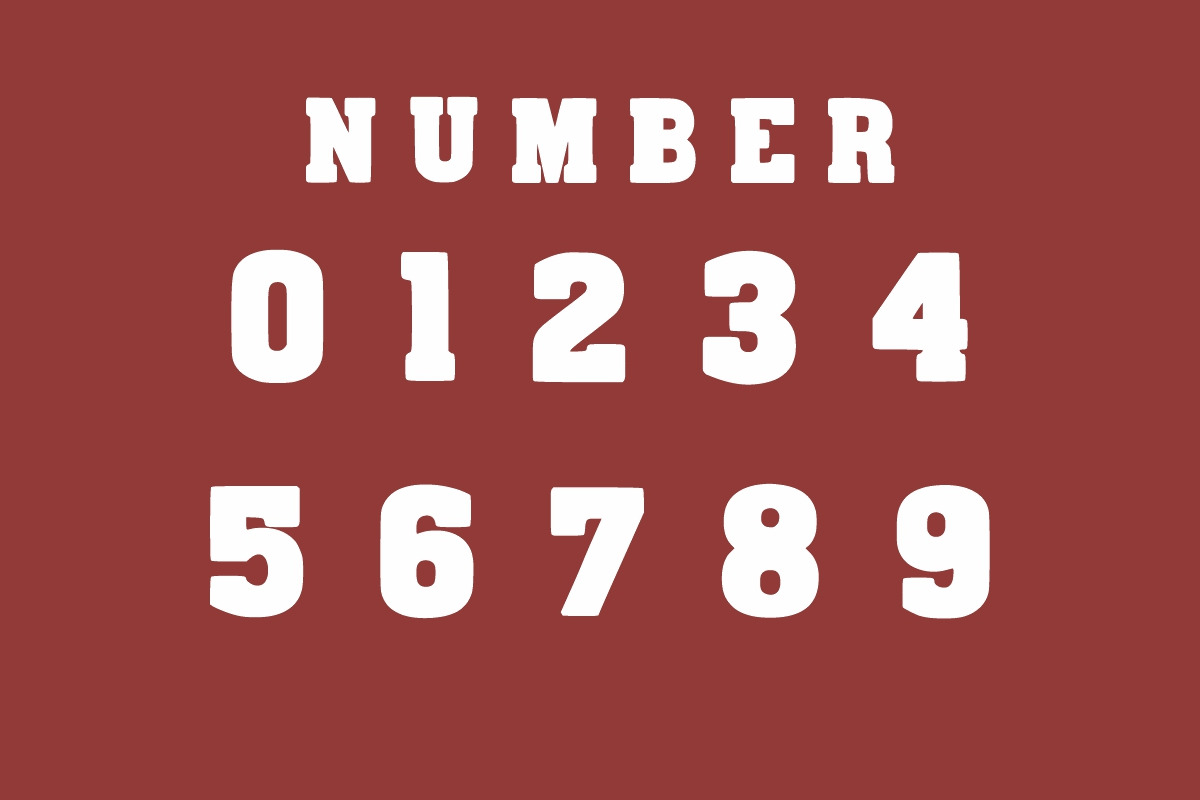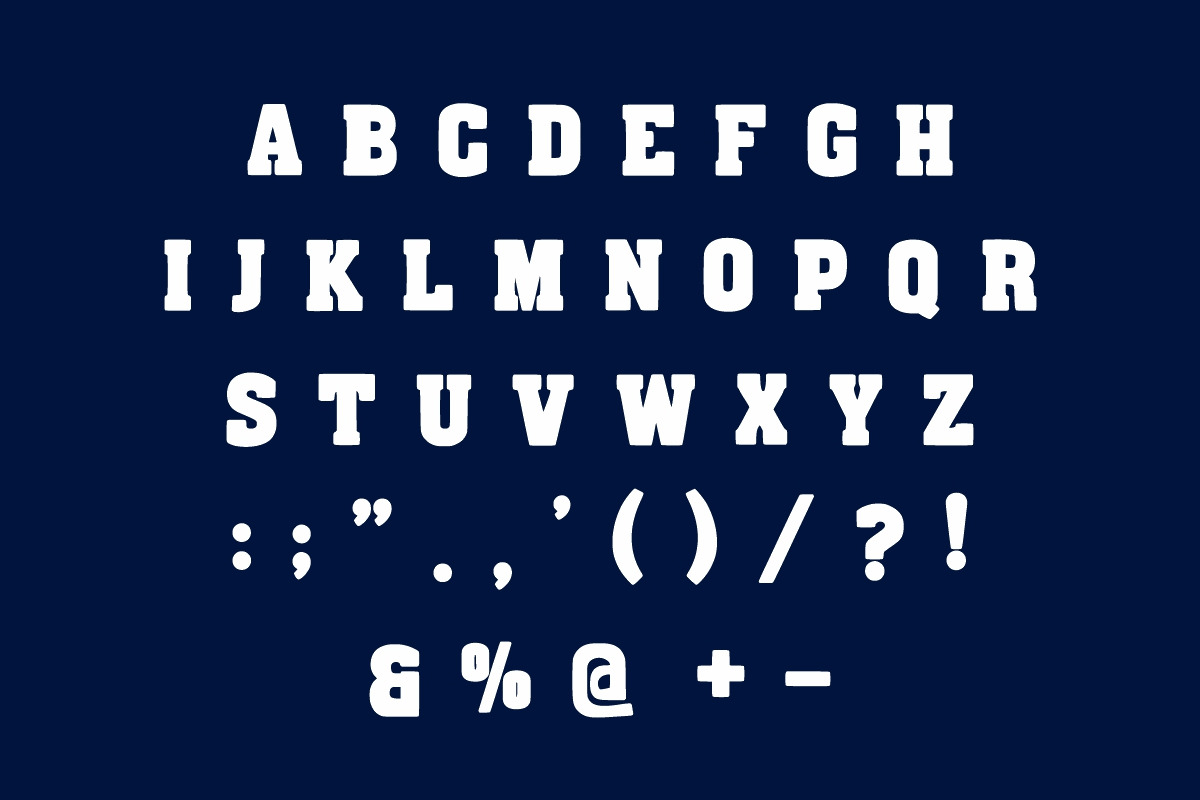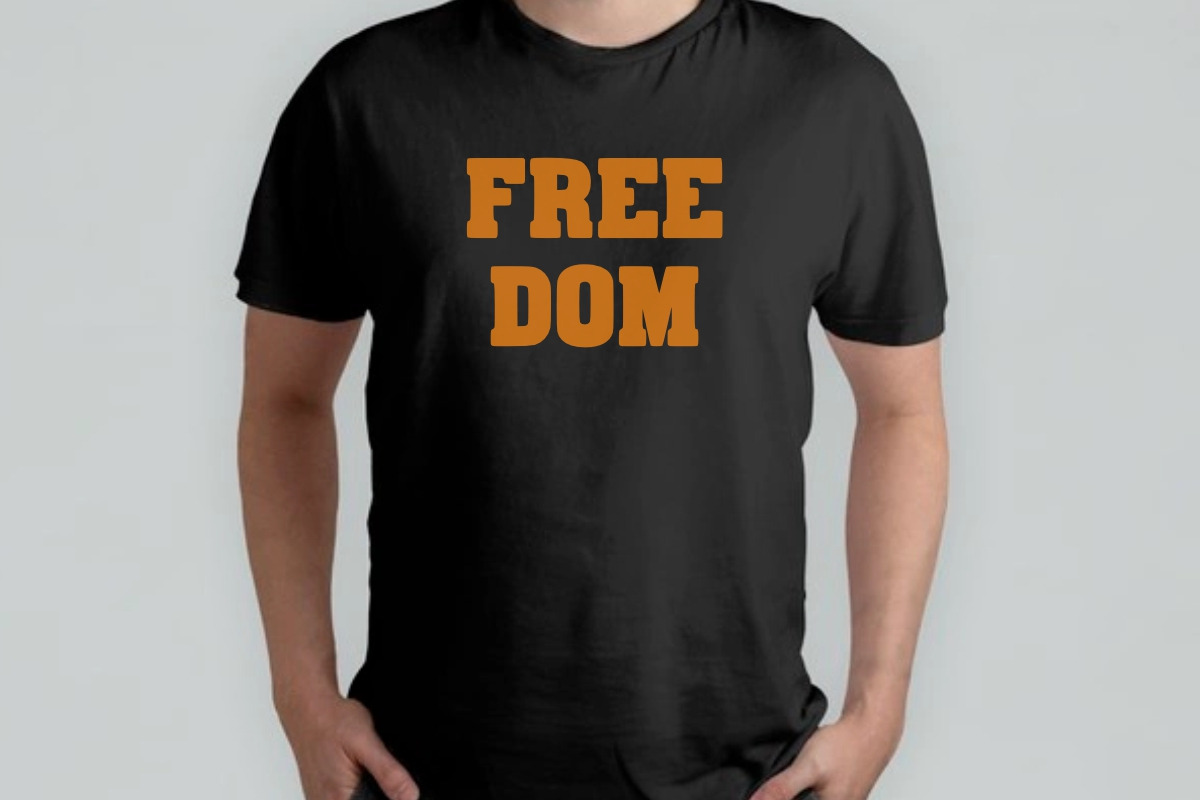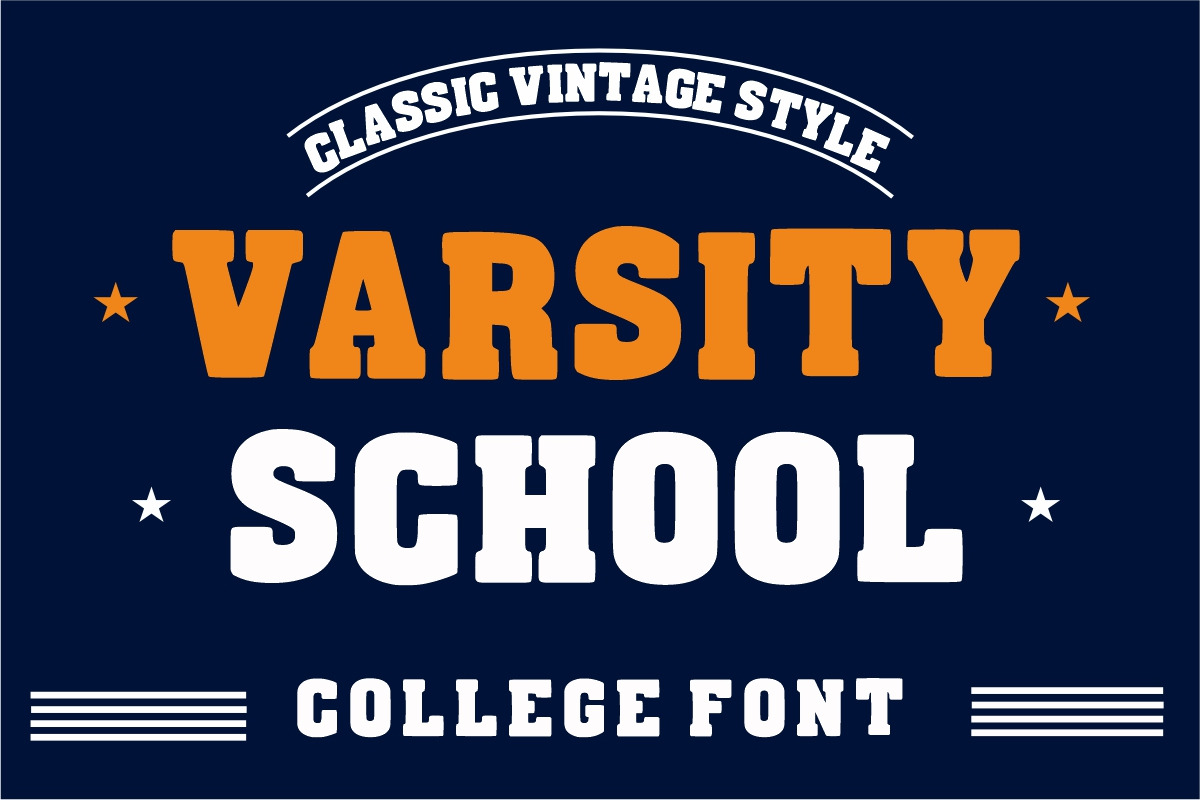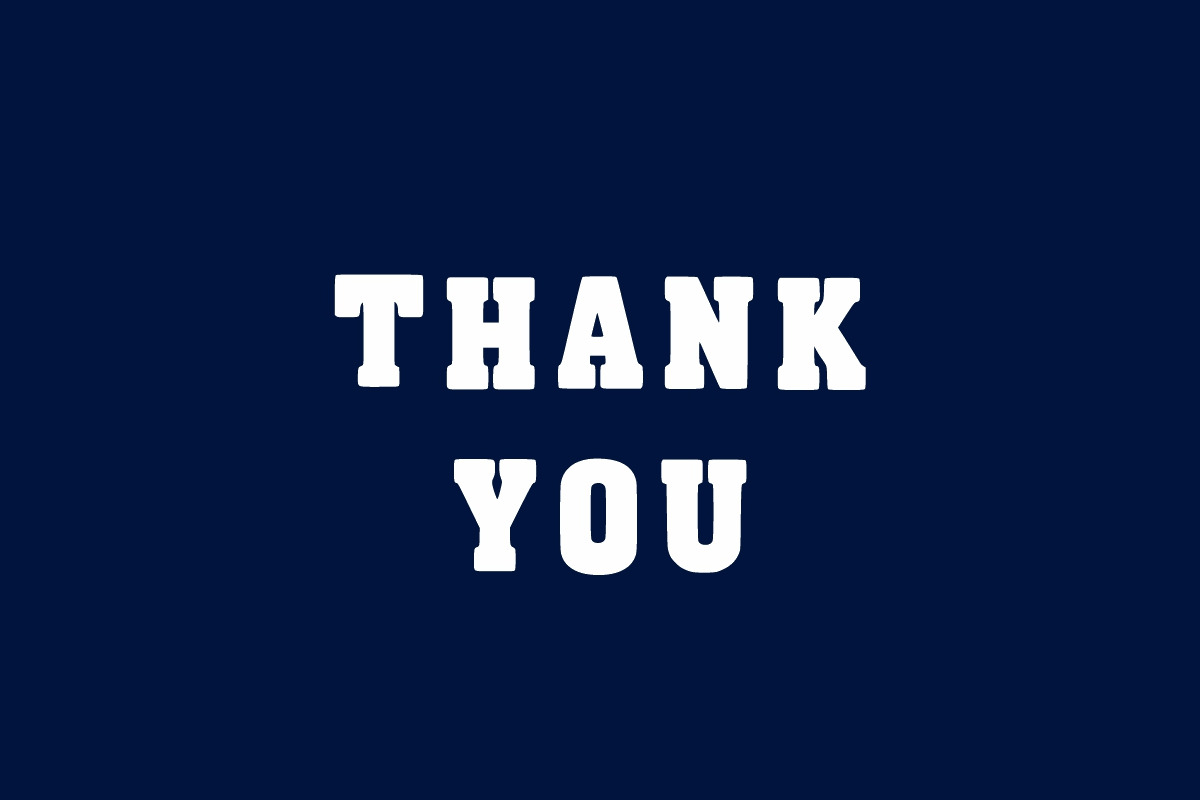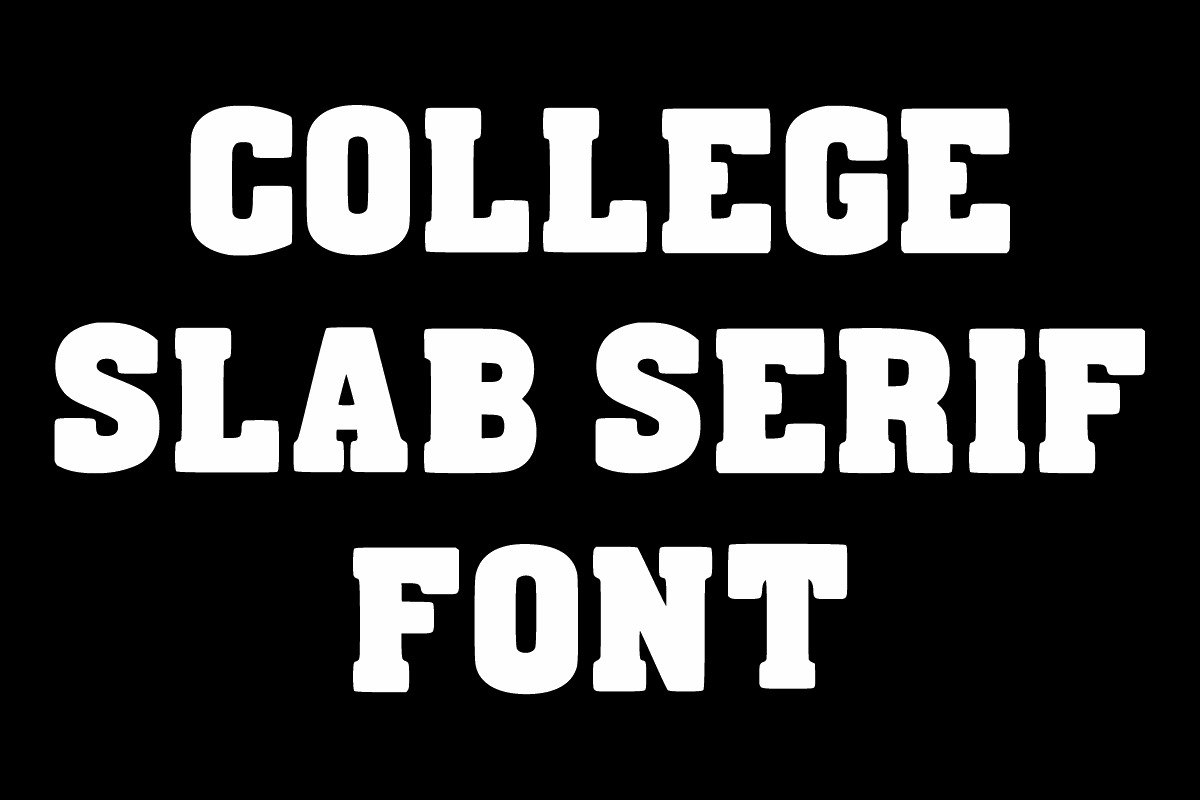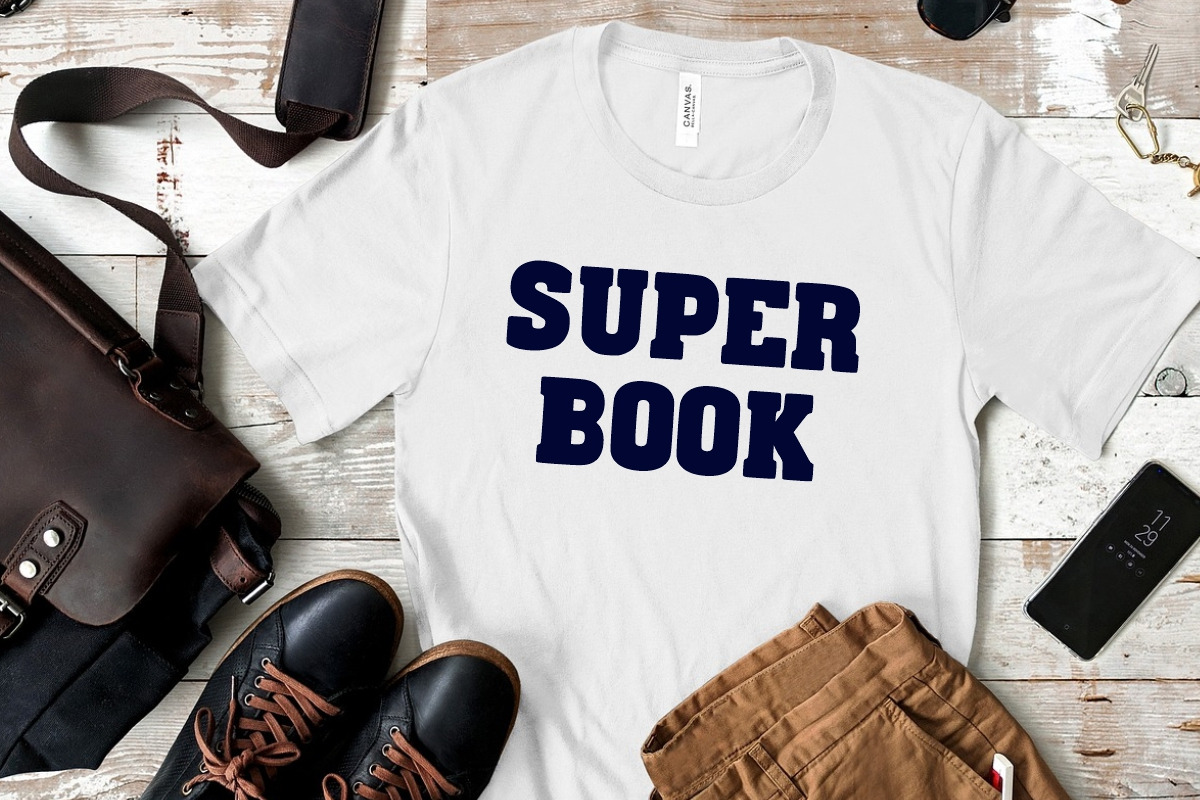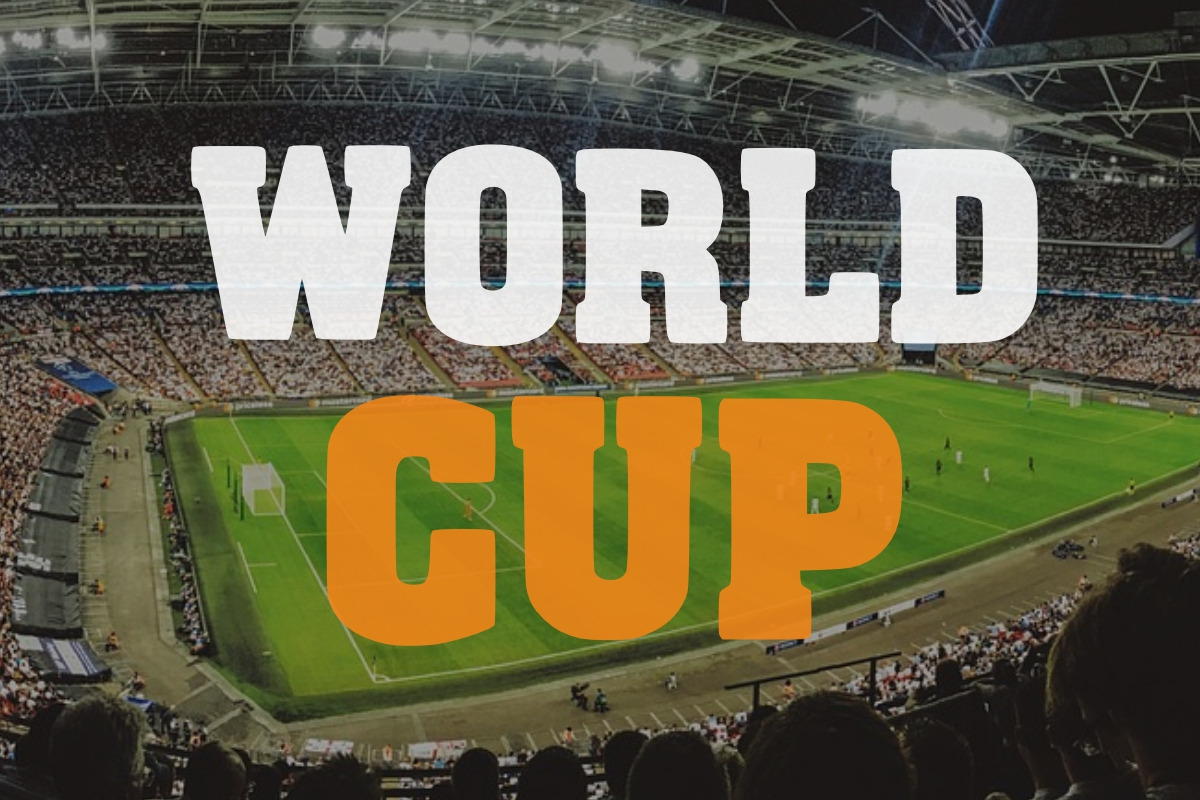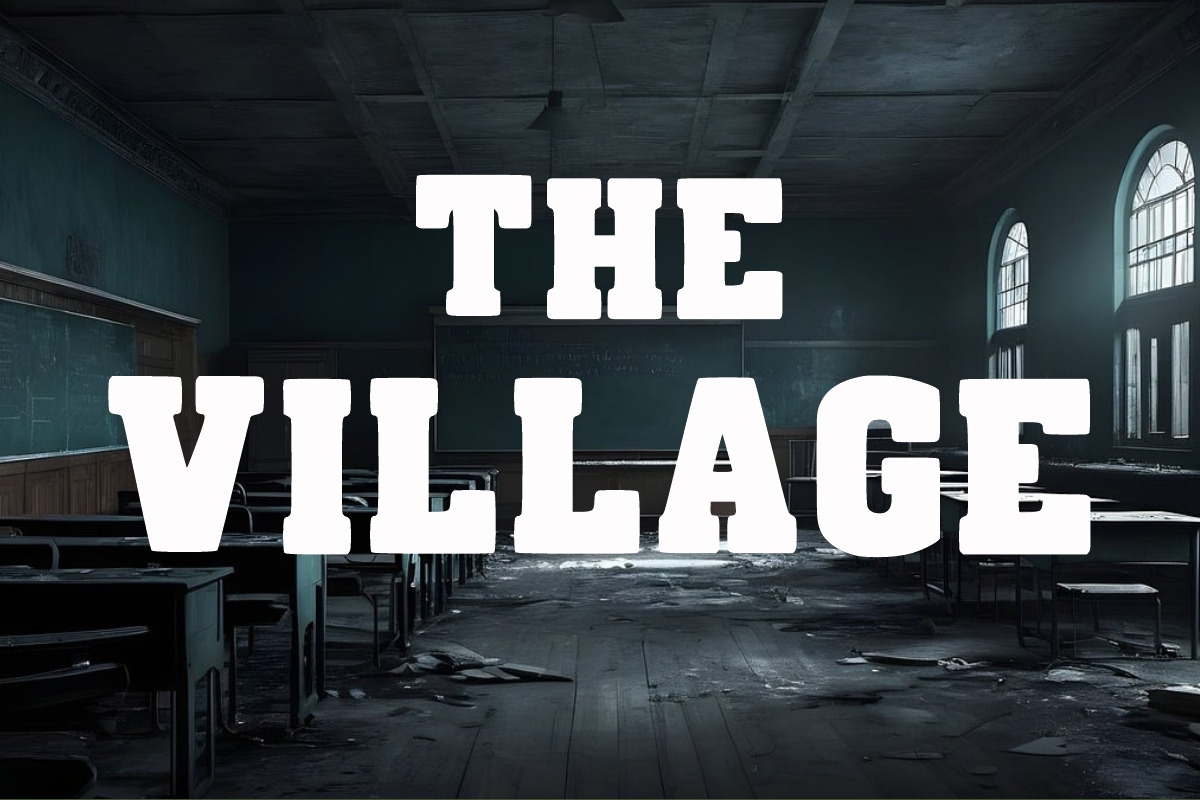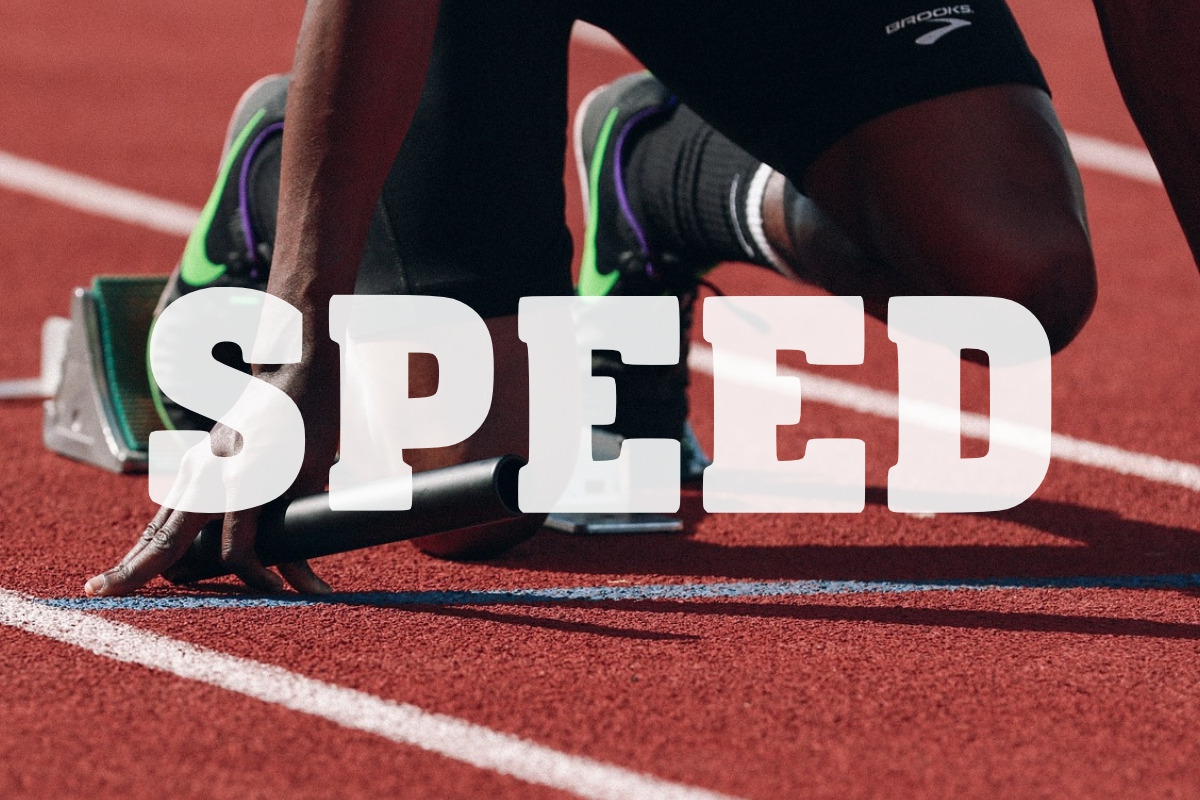
VARSITY SCHOOL VINTAGE FONT
Varsity School is a Sport College and bold display font. It is suitable for any winter and holiday branding project, product packaging, invitation, quote, t-shirt, label, poster, text effect, label, and logo that you wish to develop.